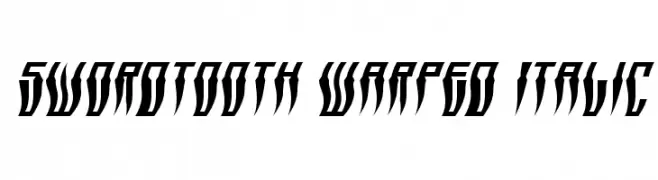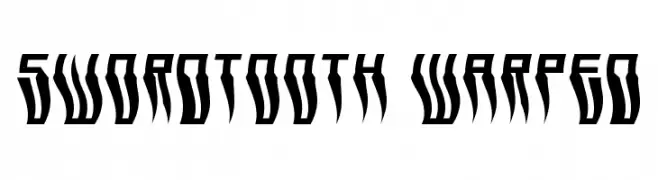
A bold, angular font with sharp, blade-like edges and a strong geometric influence.
A sharp, italic font with bold, angular characters and a dynamic style.
A bold, angular font with a sharp, warped design for a fierce look.
A sharp, angular font with a dynamic, warped italic style.